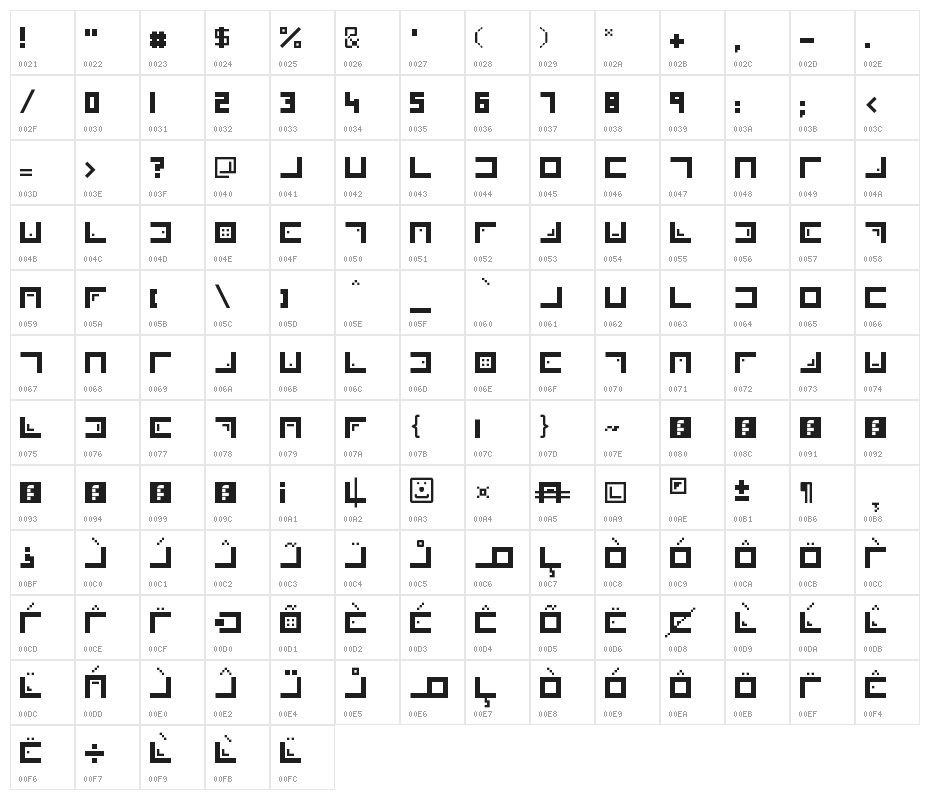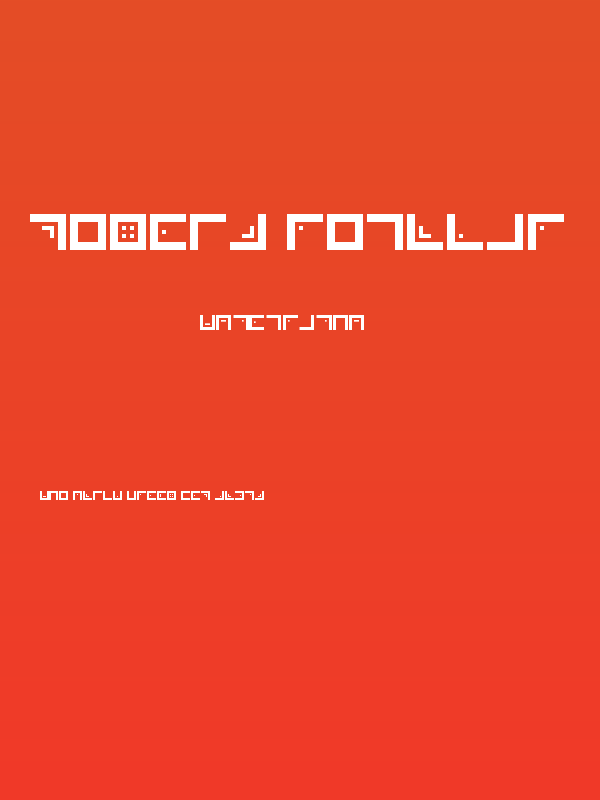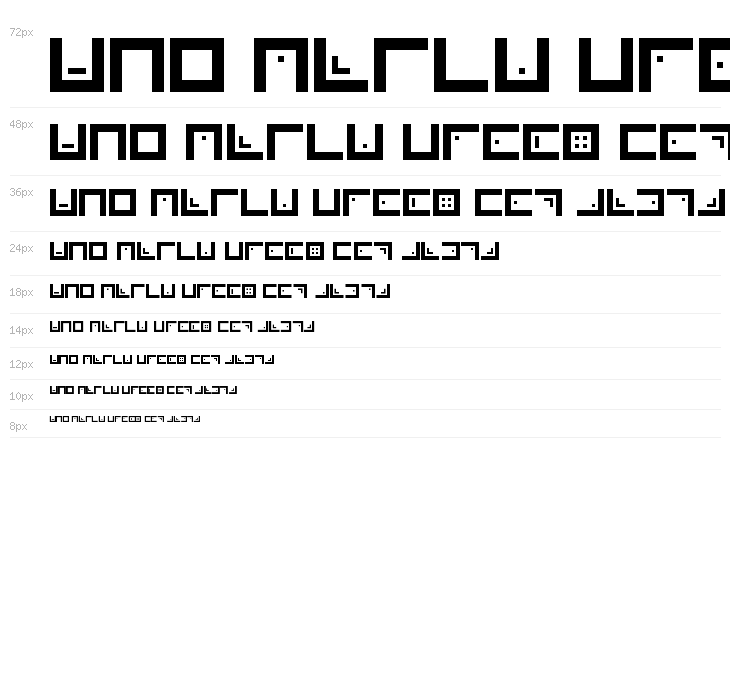
Xenois Regular Font
Xenois Regular Description
This font features a futuristic and geometric design, characterized by its blocky and angular letterforms. The characters are composed of straight lines and right angles, giving it a digital and tech-inspired appearance. The uniformity in stroke width across all characters contributes to a cohesive and structured look. The font includes uppercase and lowercase letters, numbers, and a variety of special characters, all maintaining the same stylistic approach. Its distinct and bold presence makes it suitable for projects that require a modern and edgy aesthetic.
| Proposed Projects | Ideal for technology branding, video game titles, sci-fi themed posters, and digital interfaces. |